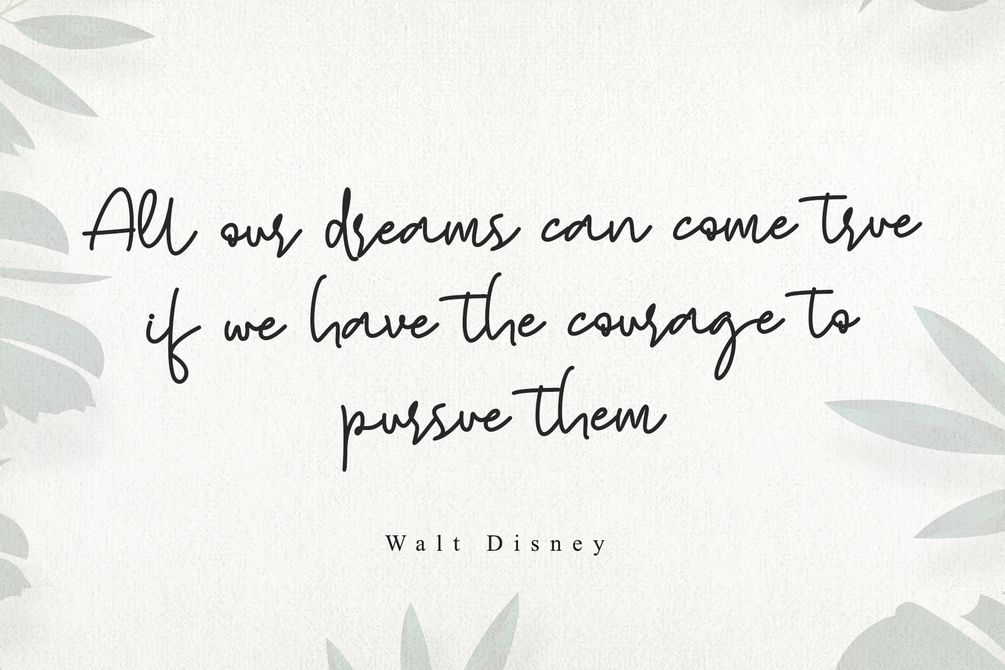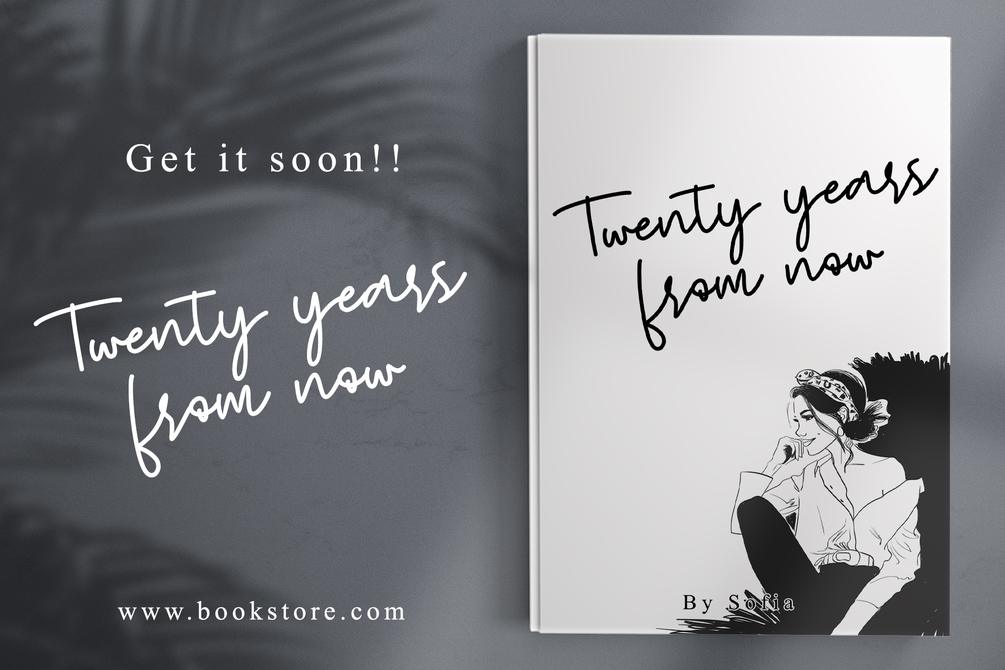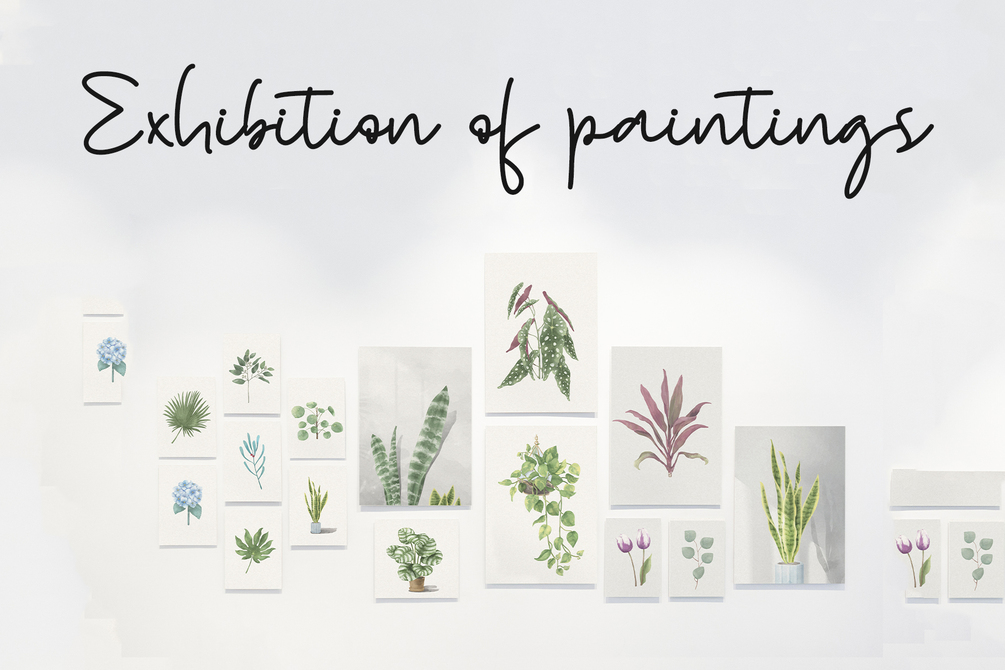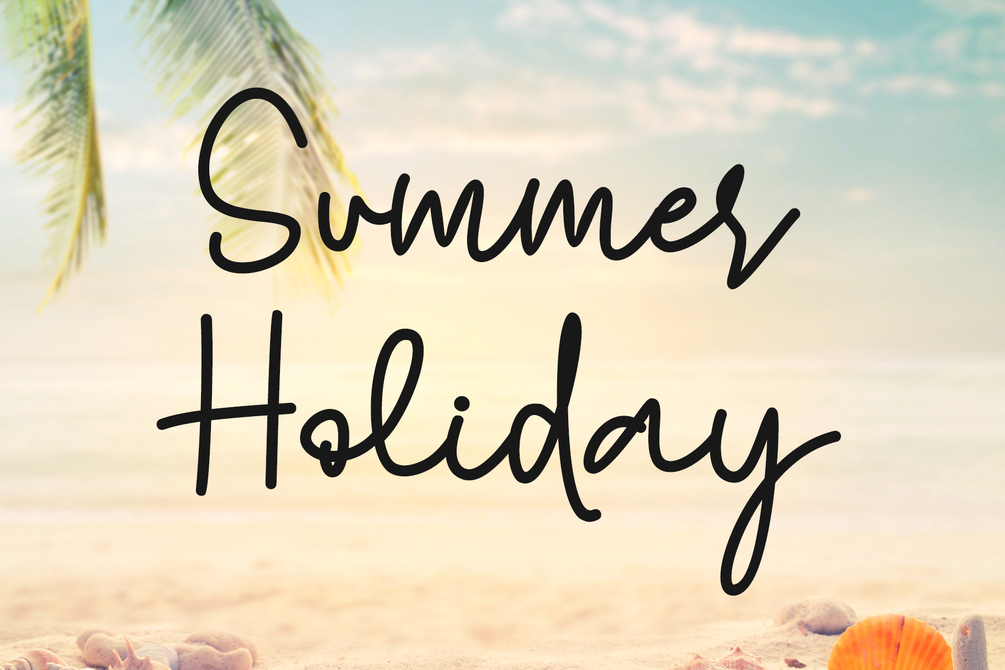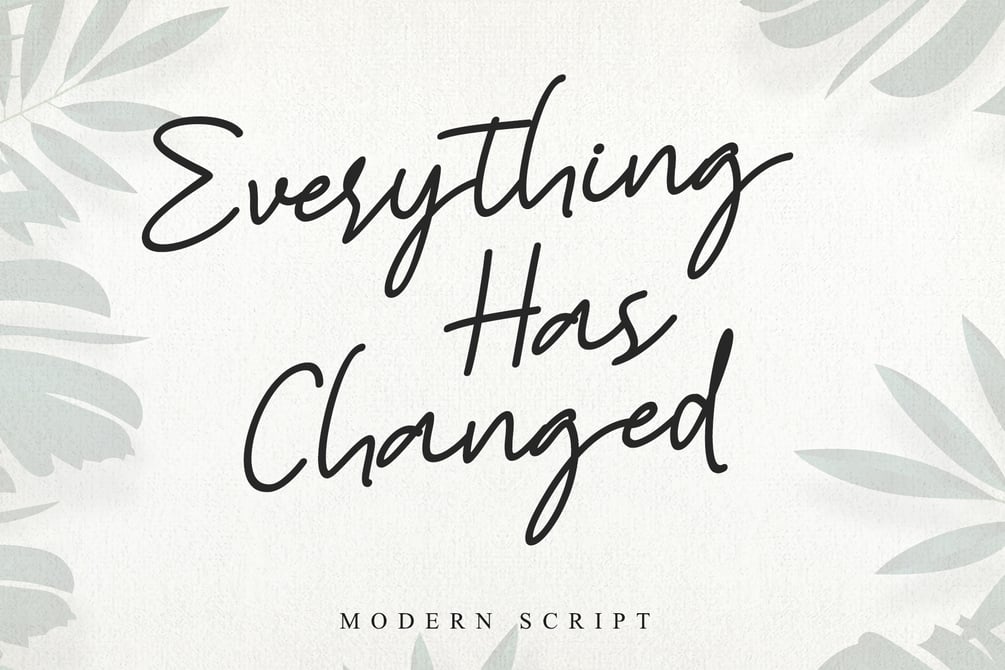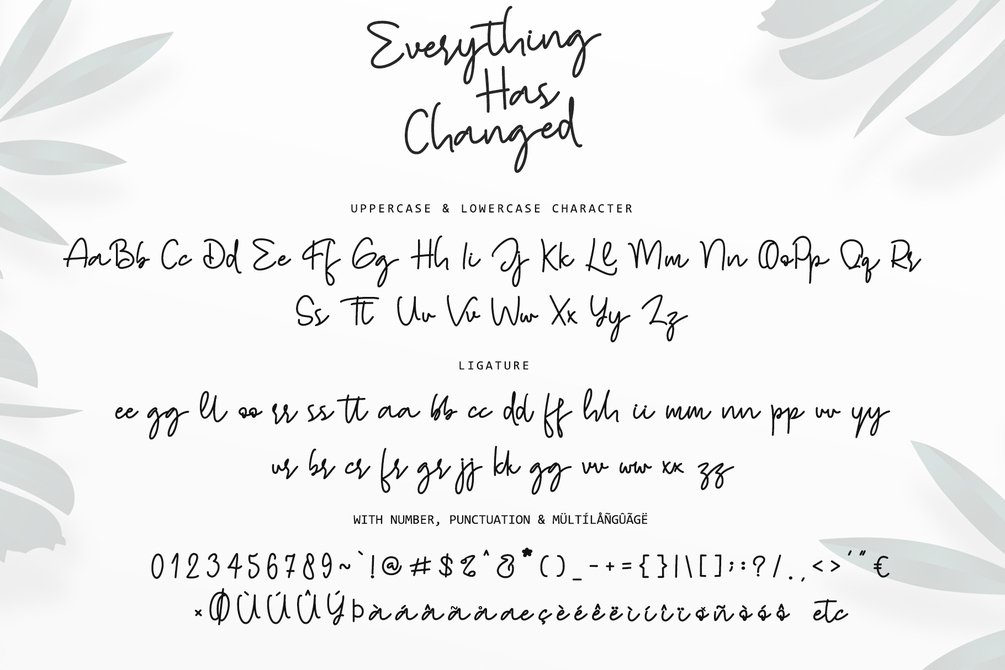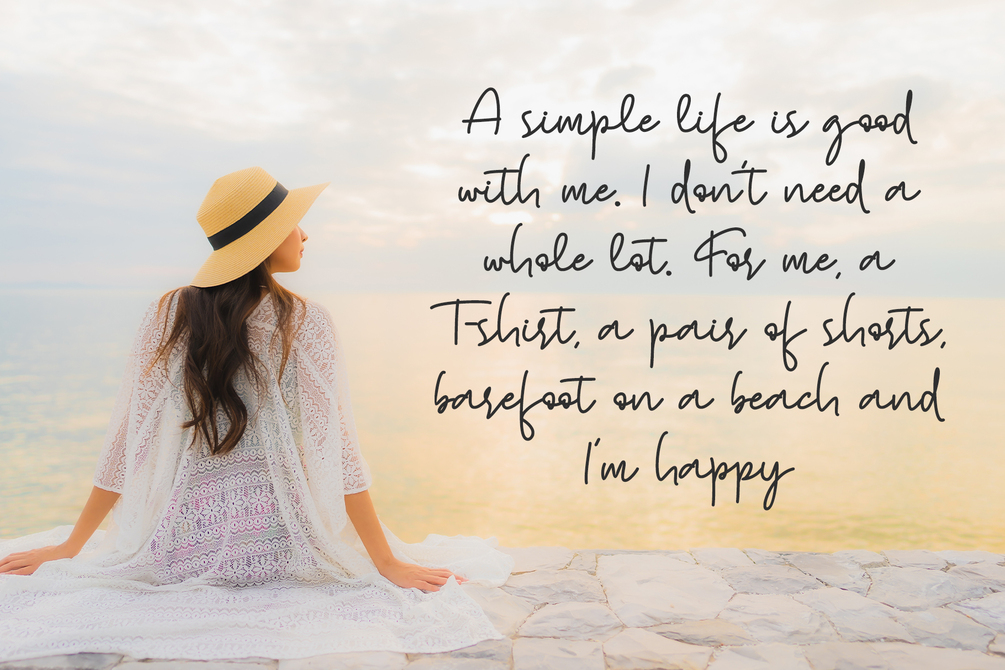
Everything Has Changed
Everything Has Changed is a beautiful monoline script font that will effortlessly add a perfect look to any craft! Your imagination and this font will make a perfect combination. Get inspired by its unique charm and create amazing greeting cards, Weddings, books, logos, stationery, and much more! This font is PUA encoded which means you can access all of the cute glyphs with ease! It also features a wealth of including ligatures.